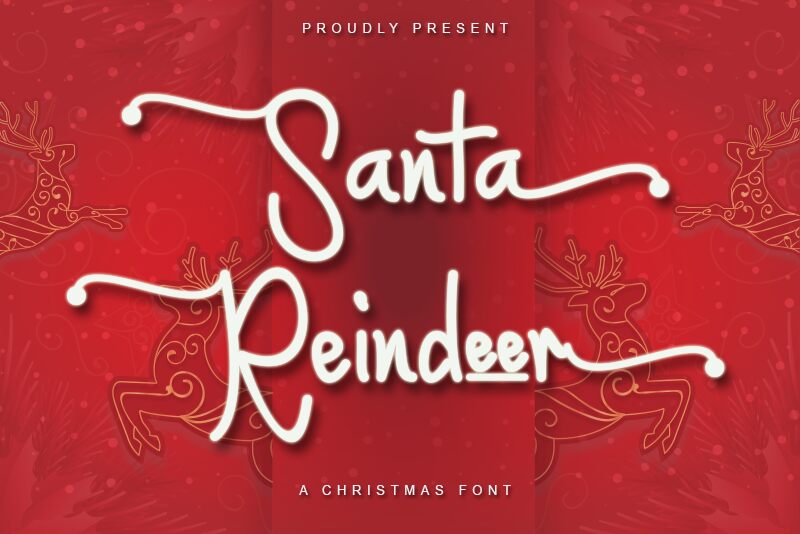
Introducing Santa Reindeer, an elegant handwritten script font designed by Arkrist Letter. Perfect for creating festive designs and holiday projects, this festive font will add a touch of magic to all your creative works! It's also great for creating invitations, cards and other festive projects.
Arkrist Letter